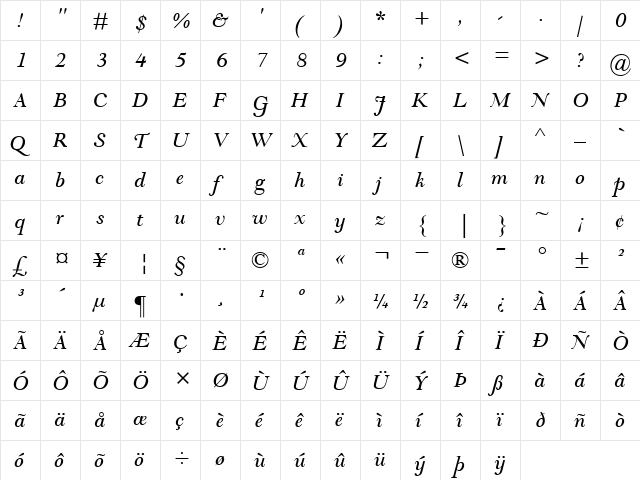
GoudyModernMT RomanItalic
Design Context for GoudyModernMT Typeface
GoudyModernMT offers clean, dependable letterforms without strong stylistic allegiance, making it a practical choice for designers who need flexibility. The dynamic lean of this cut emphasises speed and emphasis in any layout.